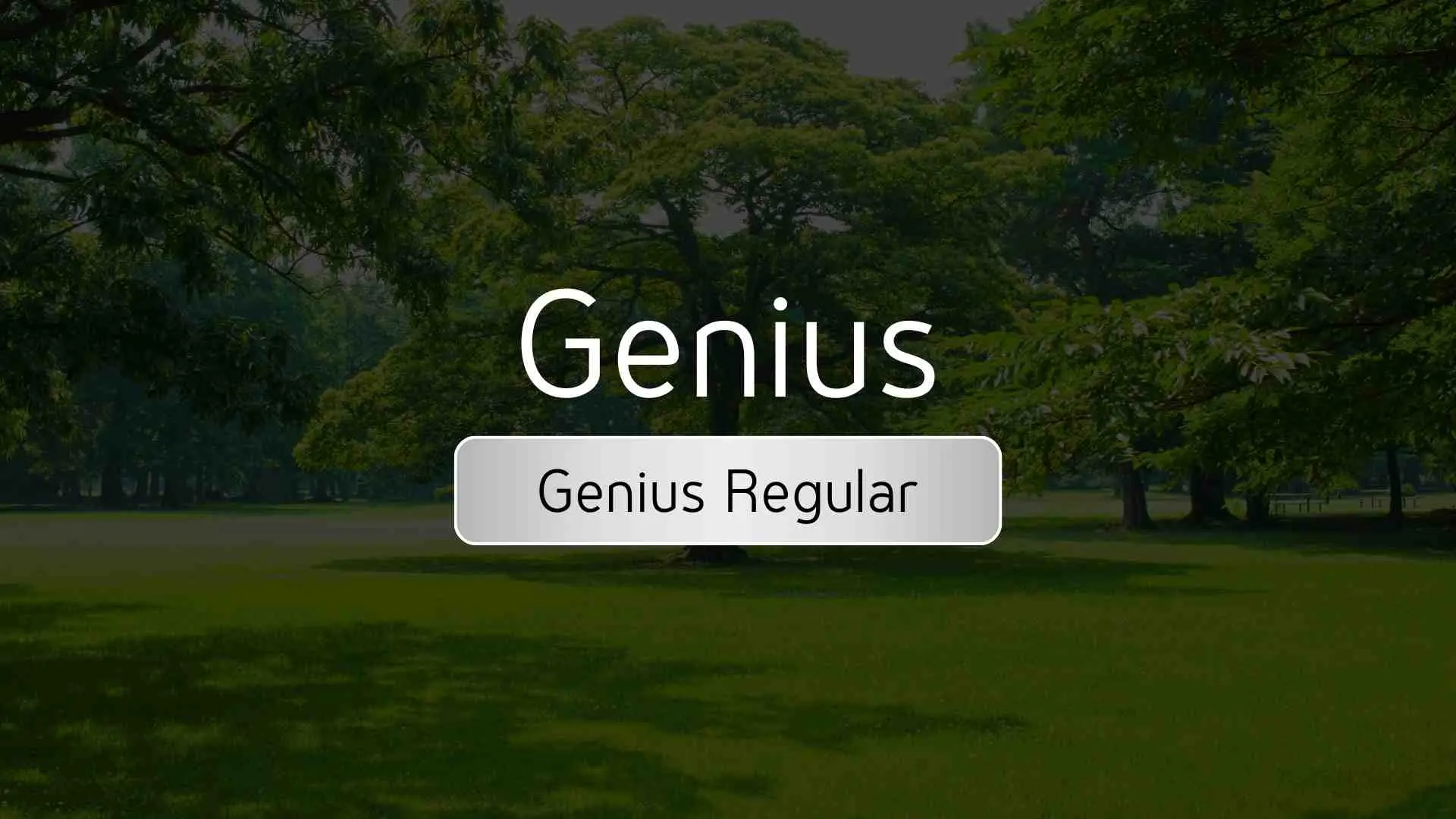
Genius Regular
Genius Regular Font
The font Genius Regular, designed by Ceyhun Birinci, falls under the Sans Serif category & Genius font family. Its smooth, flowing letterforms make it a versatile choice for projects that require both elegance and readability. Genius is particularly well-suited for Branding, Logo, Web Design, Signage, Advertising, UI/UX Design, Print Media, Corporate Identity and Wordmarks. With its balance of simplicity and decorative appeal, this font brings a polished touch to both personal and professional designs.